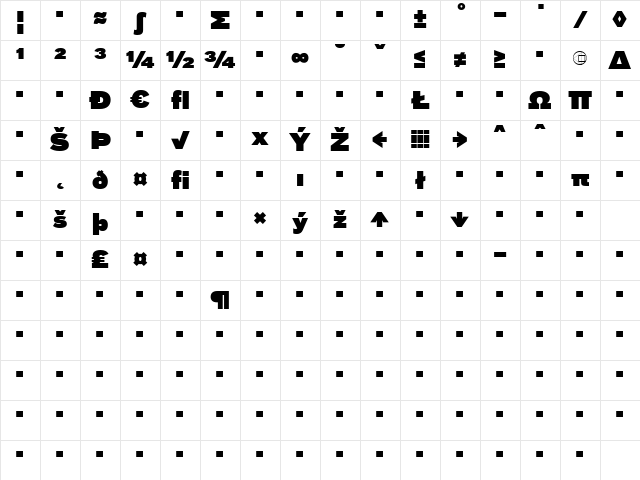
Bau-SuperExpert Regular Free Font
Bau-SuperExpert Regular
Foundry: Christian Schwartz published by FontShop International for the FontFont Library
Designer: Christian Schwartz
Design Context for Bau-SuperExpert
Bau-SuperExpert is a composed and adaptable typeface that performs quietly and consistently across a wide range of design contexts.
Who designed the Bau-SuperExpert Regular font?